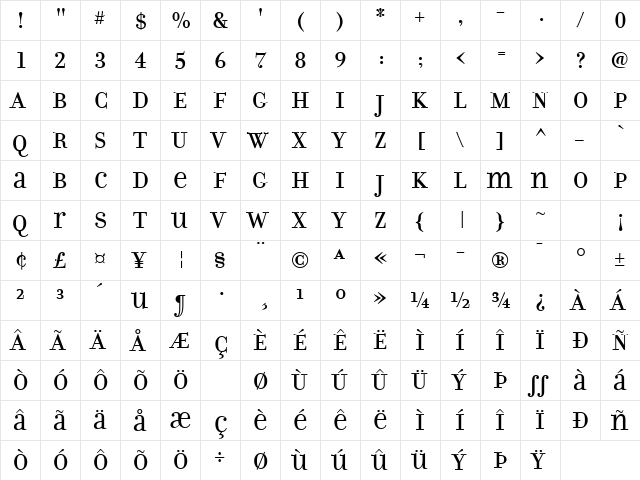
FilosofiaUnicase Regular
Design Context for FilosofiaUnicase Typeface
FilosofiaUnicase takes a measured approach to typography — its balanced proportions and neutral character make it a reliable workhorse for both digital and print work.